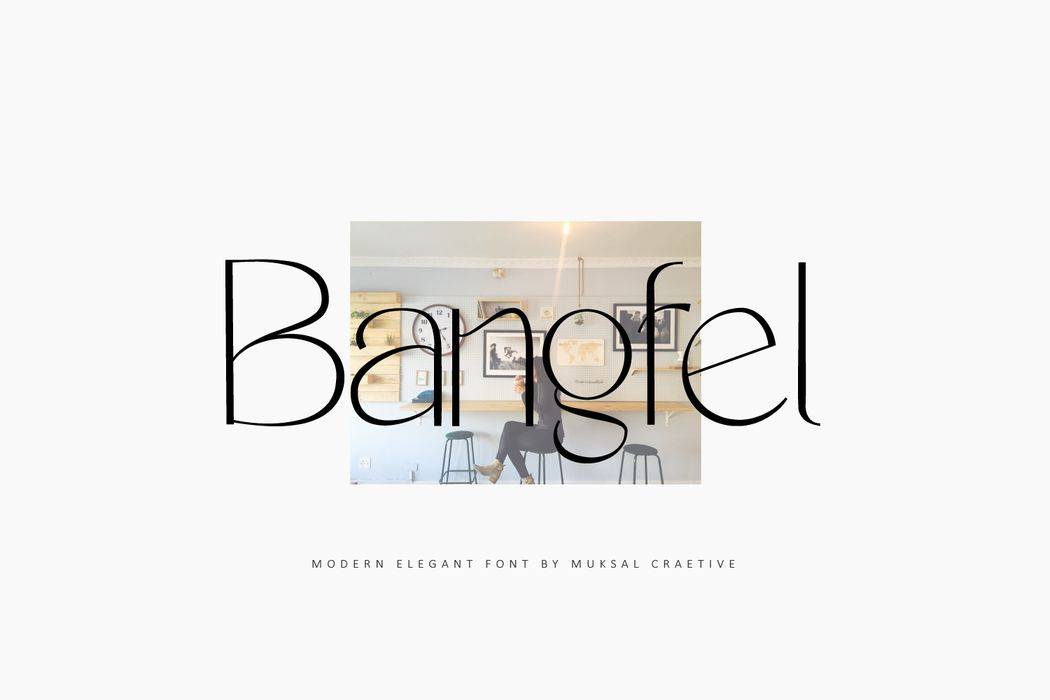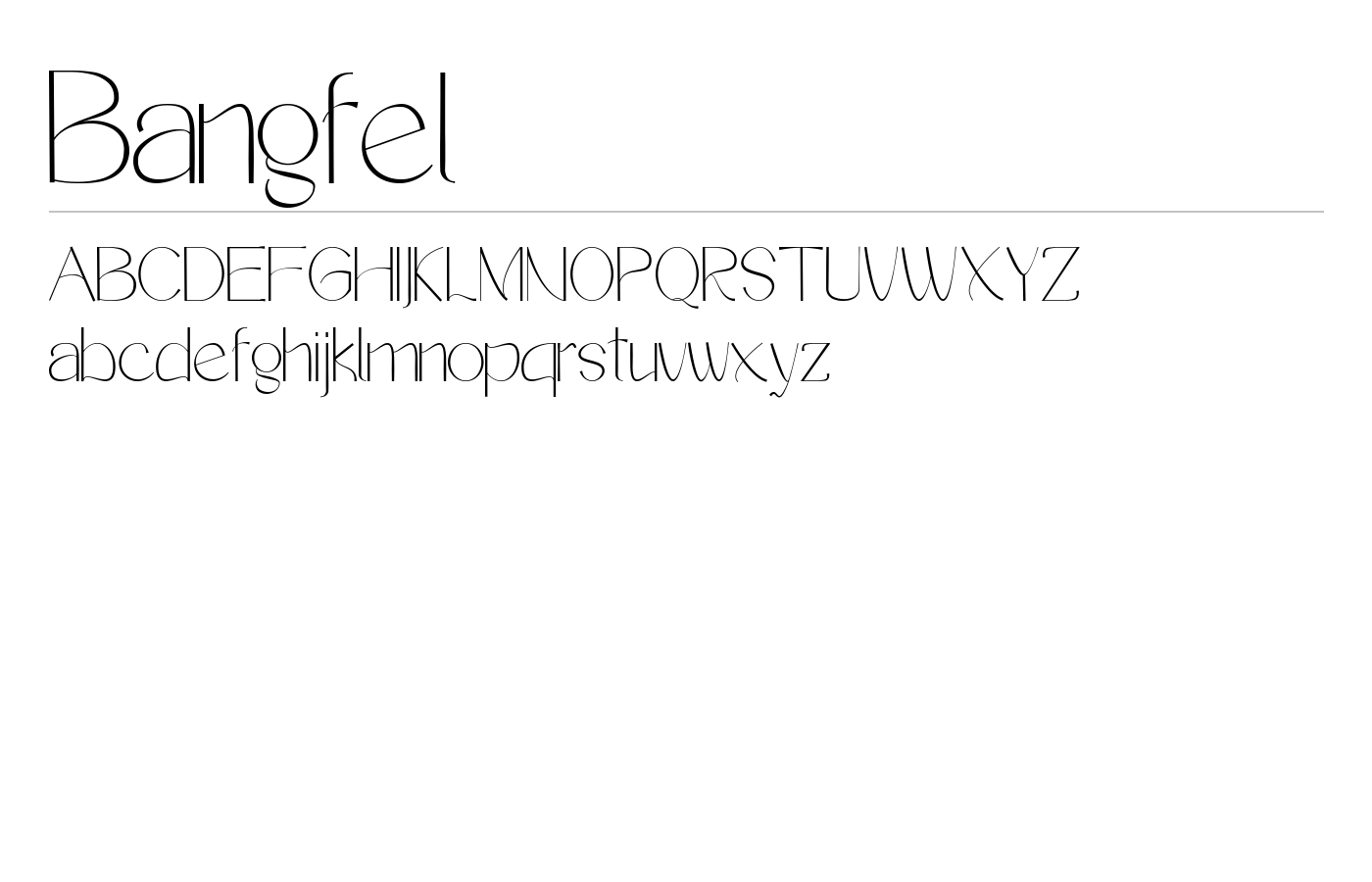
Bangfel is a delicate, ultra-thin sans serif font with a modern and slightly playful character, featuring tall, narrow letterforms and subtle geometric touches. Its light weight and airy spacing make it ideal for elegant headlines, fashion branding, and creative editorial layouts where a refined yet distinctive look is desired. This font works best in large sizes to highlight its fine line style and unique letter shapes.
Bangfel Font
About Bangfel Font